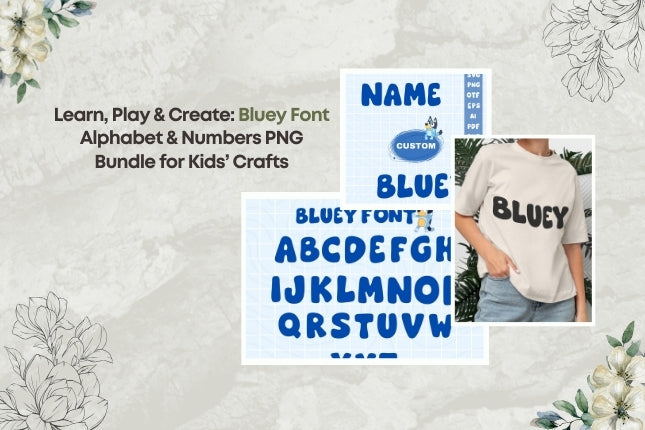
If your child loves Bluey and the Heeler family, you’ll love the Bluey Font Alphabet & Numbers PNG bundle. Inspired by the playful style of the hit show, this fun KidsFont collection is perfect for making t-shirts, mugs, bottles, bags, and party decor. Whether you’re planning a Bluey birthday party or simply want to add character to your DIY projects, the BlueyPNG designs are a must-have for parents, teachers, and crafters.
Why Bluey Font Alphabet & Numbers PNG Bundles Are Trending 🐾
- Loved by Kids Everywhere – The cheerful BlueyFont and BingoFont style makes learning letters and numbers fun.
- Perfect for Celebrations – Use BlueDogFont PNGs for birthday shirts, banners, and invitations.
- Multi-Purpose Use – From TshirtDesigns to PrintableFonts for school projects, the options are endless.
- Customizable – Parents and teachers use the PersonalizedFont bundle to create name tags, labels, and decor.
Top Bluey Font Alphabet & Numbers PNG Designs You Need This Season 🎨
- Full BlueyAlphabet A–Z Set – Great for names, party banners, and wall decor.
- BlueyNumbers 0–9 – Perfect for birthday shirts, milestone mugs, and table signs.
- BingoFont Add-ons – Add Bingo’s charm to party invites and mugs.
- BlueyClipart Elements – Enhance your TshirtDesigns and PrintableFonts.
- PersonalizedFont Options – Create customized crafts for kids’ birthdays or classrooms.
The Bluey Font Alphabet & Numbers PNG bundle is perfect for parents, teachers, and crafters who want to make everyday projects more colorful and fun. From birthday banners and party shirts to school decor and PrintableFonts, Arteraa makes it easy to bring the Heeler family’s joy into your creations.